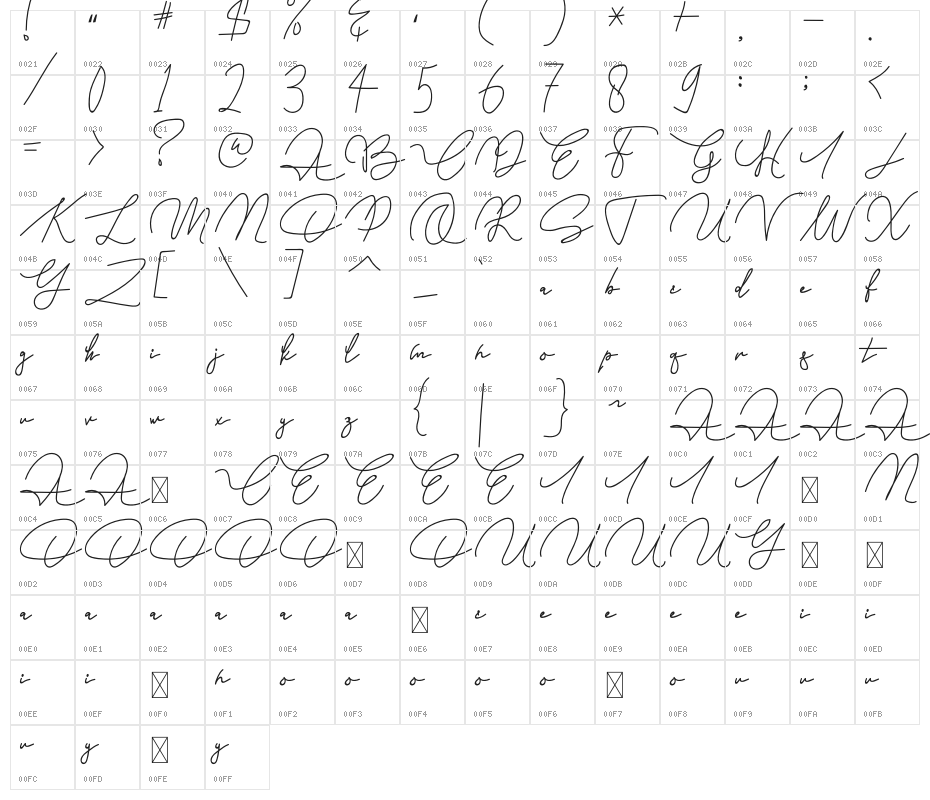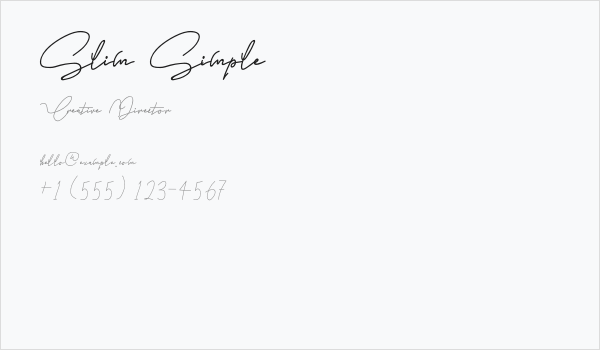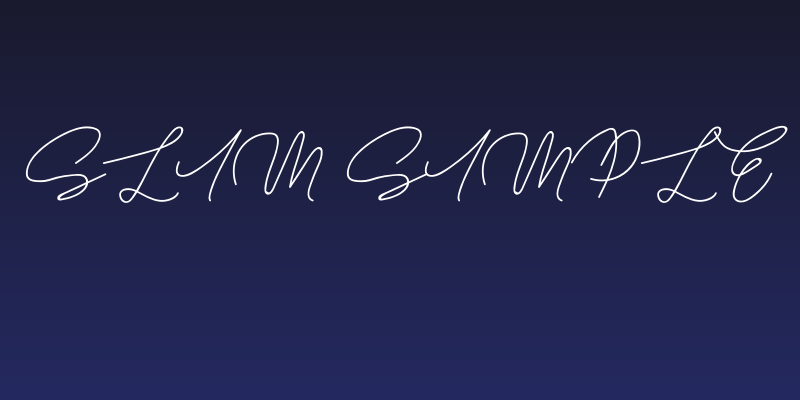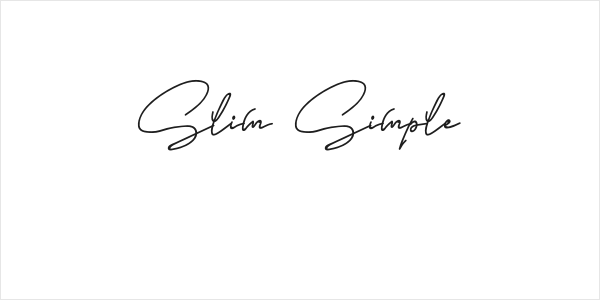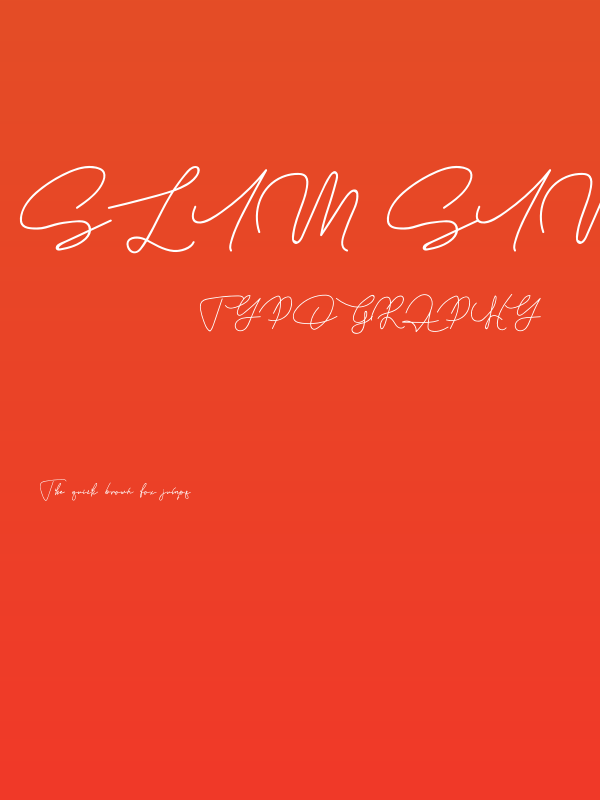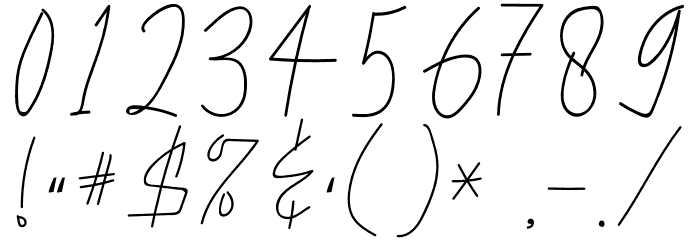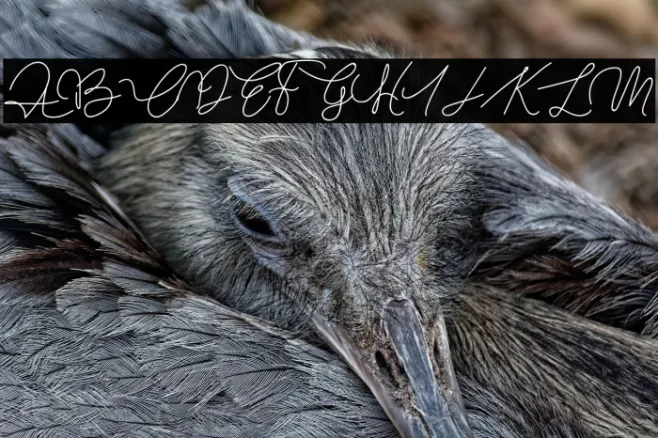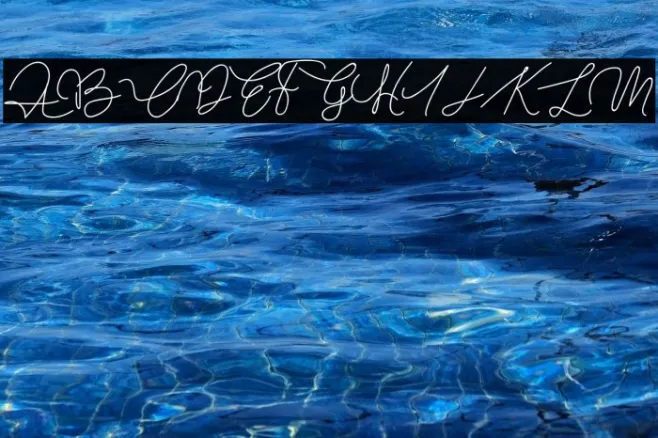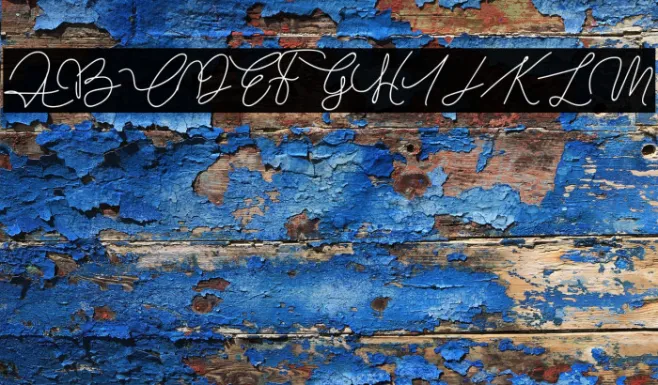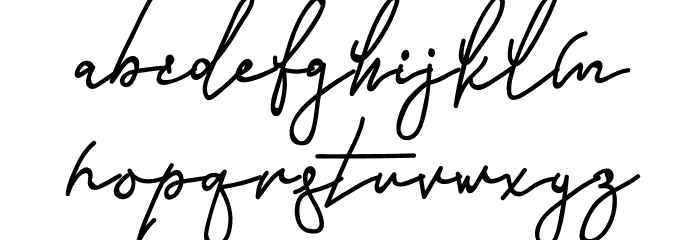
Slim Simple Font
Slim Simple Description
This font features a delicate and elegant script style, characterized by its thin lines and flowing, cursive letterforms. The uppercase letters are particularly ornate, with loops and swirls that add a touch of sophistication. The lowercase letters maintain a consistent flow, making it ideal for creating a seamless, handwritten appearance. The numerals are slender and maintain the overall aesthetic of the font, while the special characters are crafted to complement the script style. This font exudes a sense of grace and refinement, perfect for projects that require a personal and artistic touch.